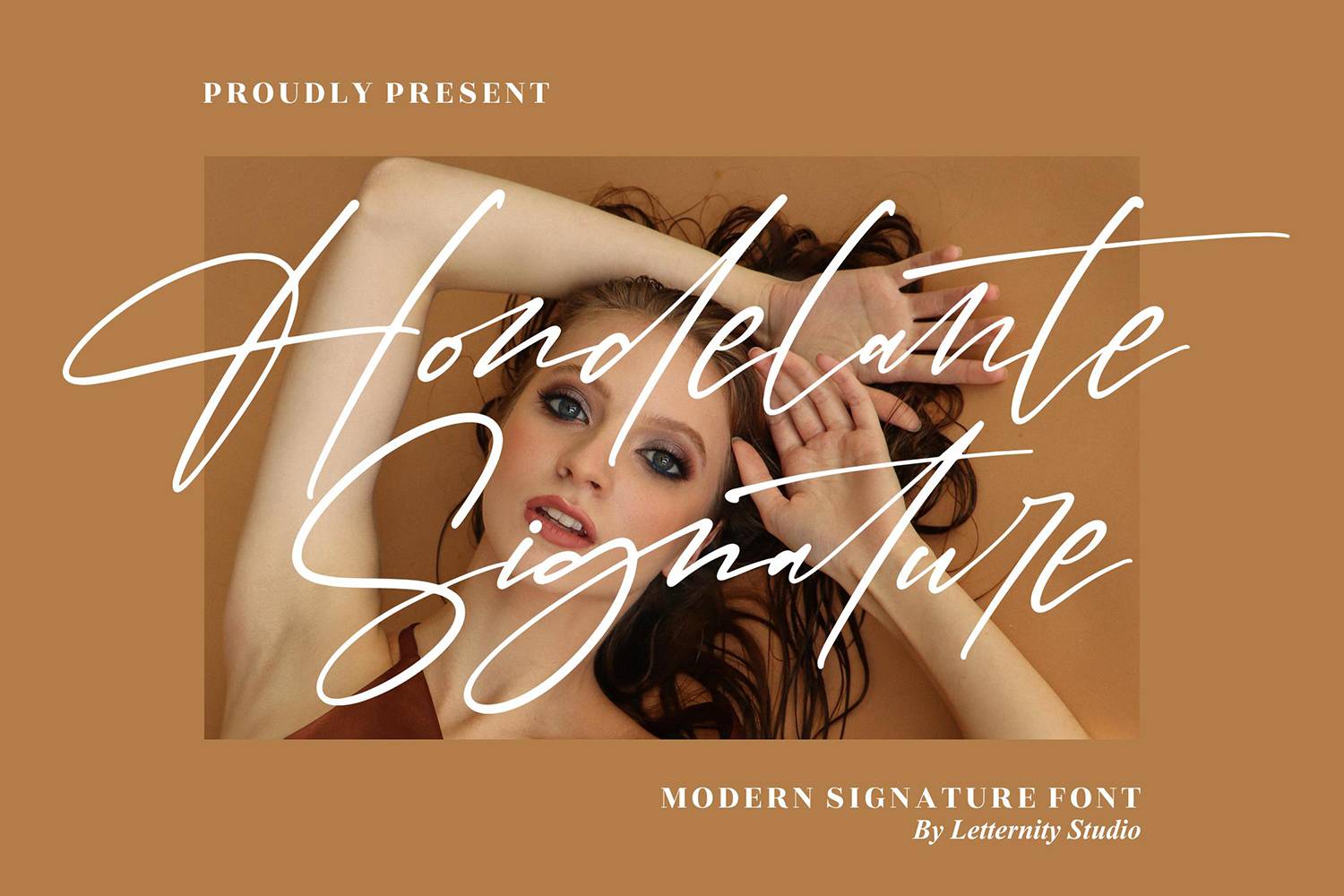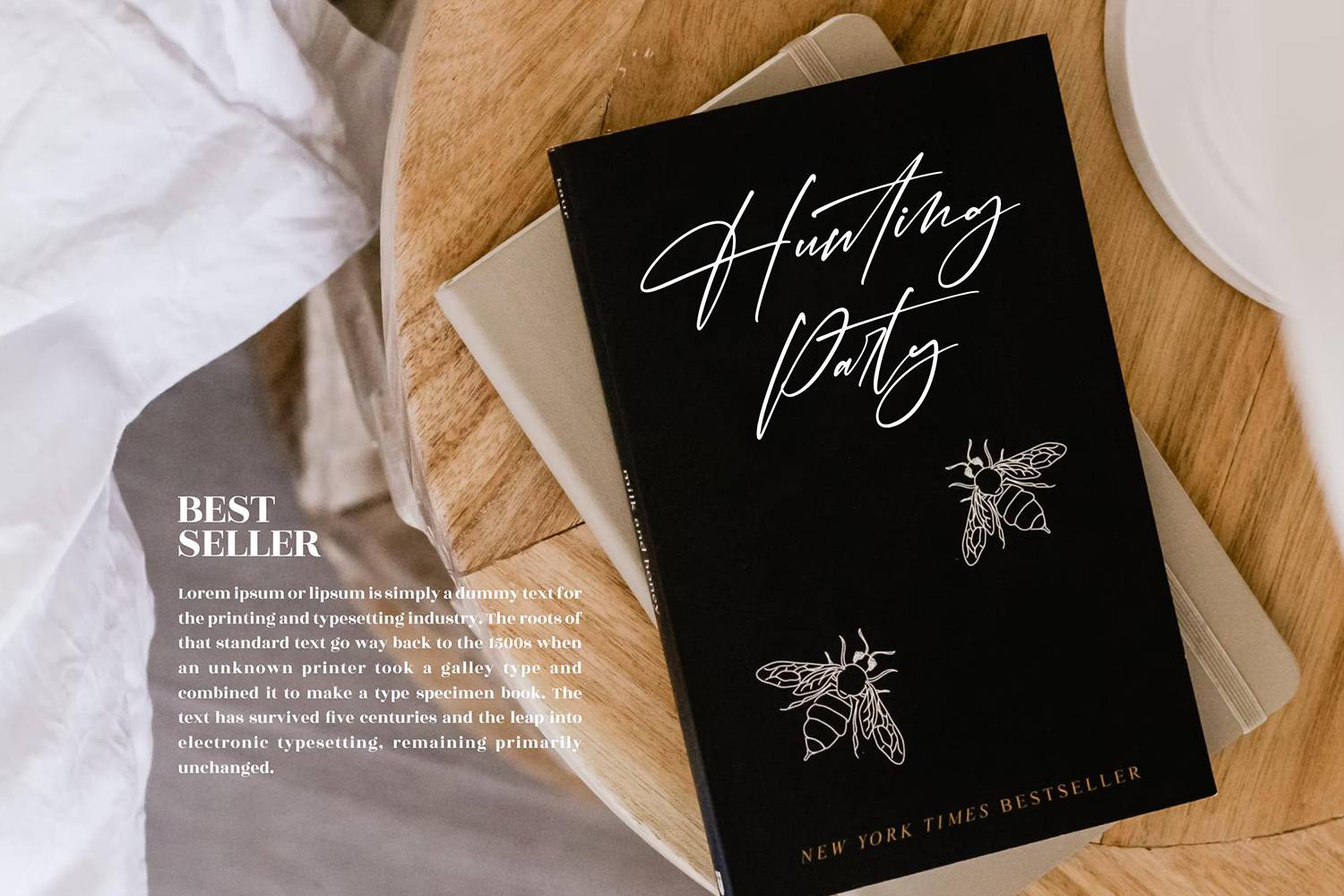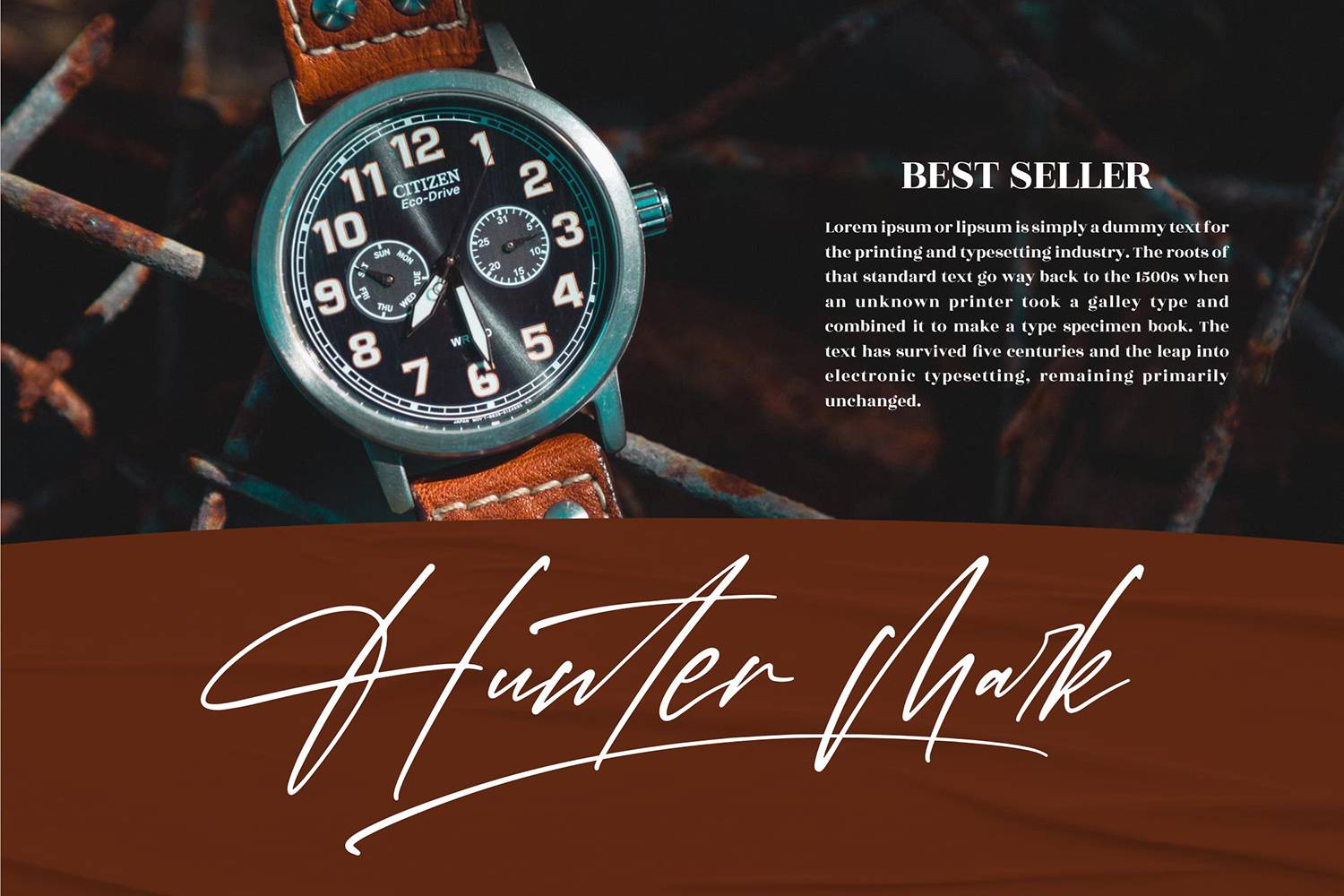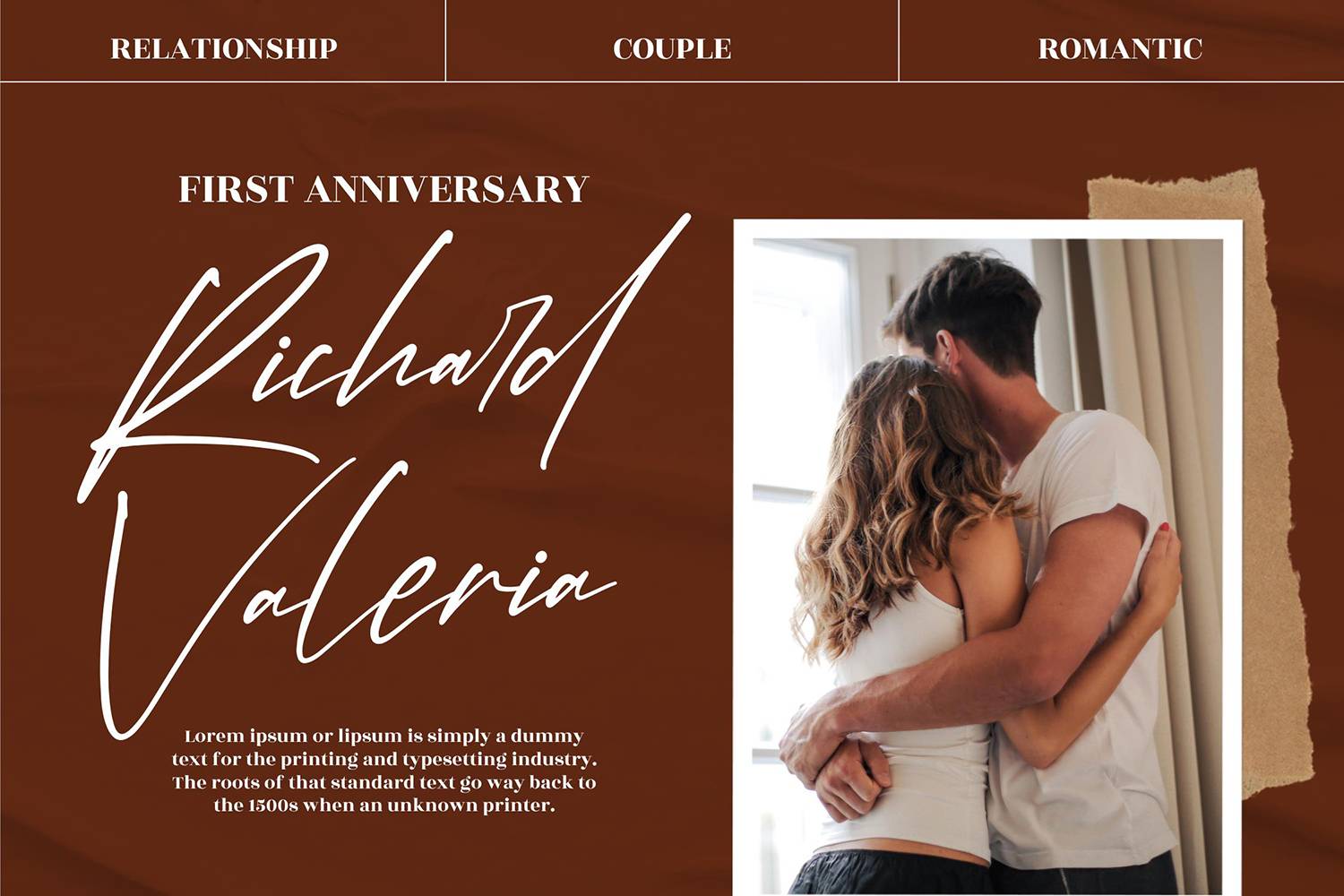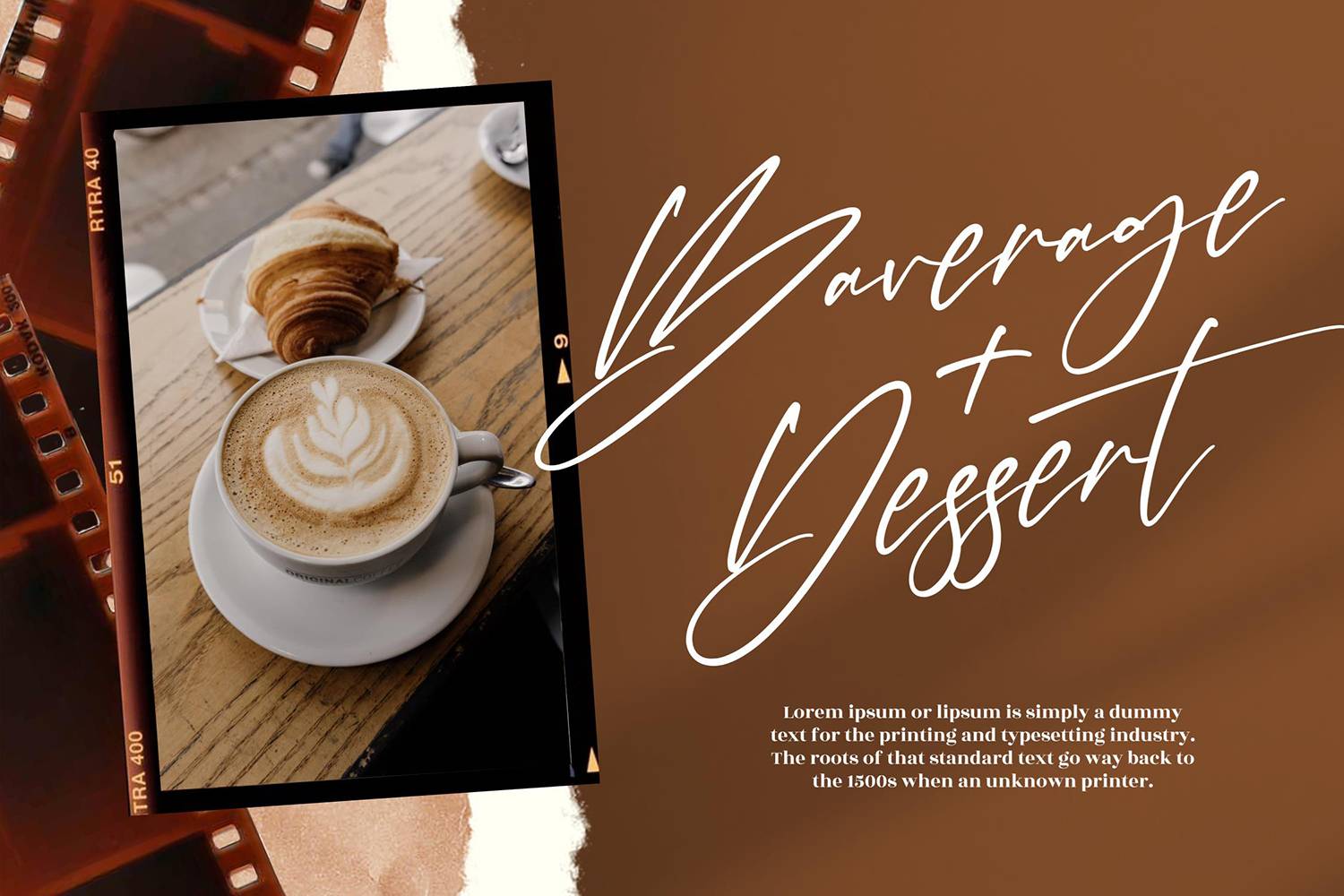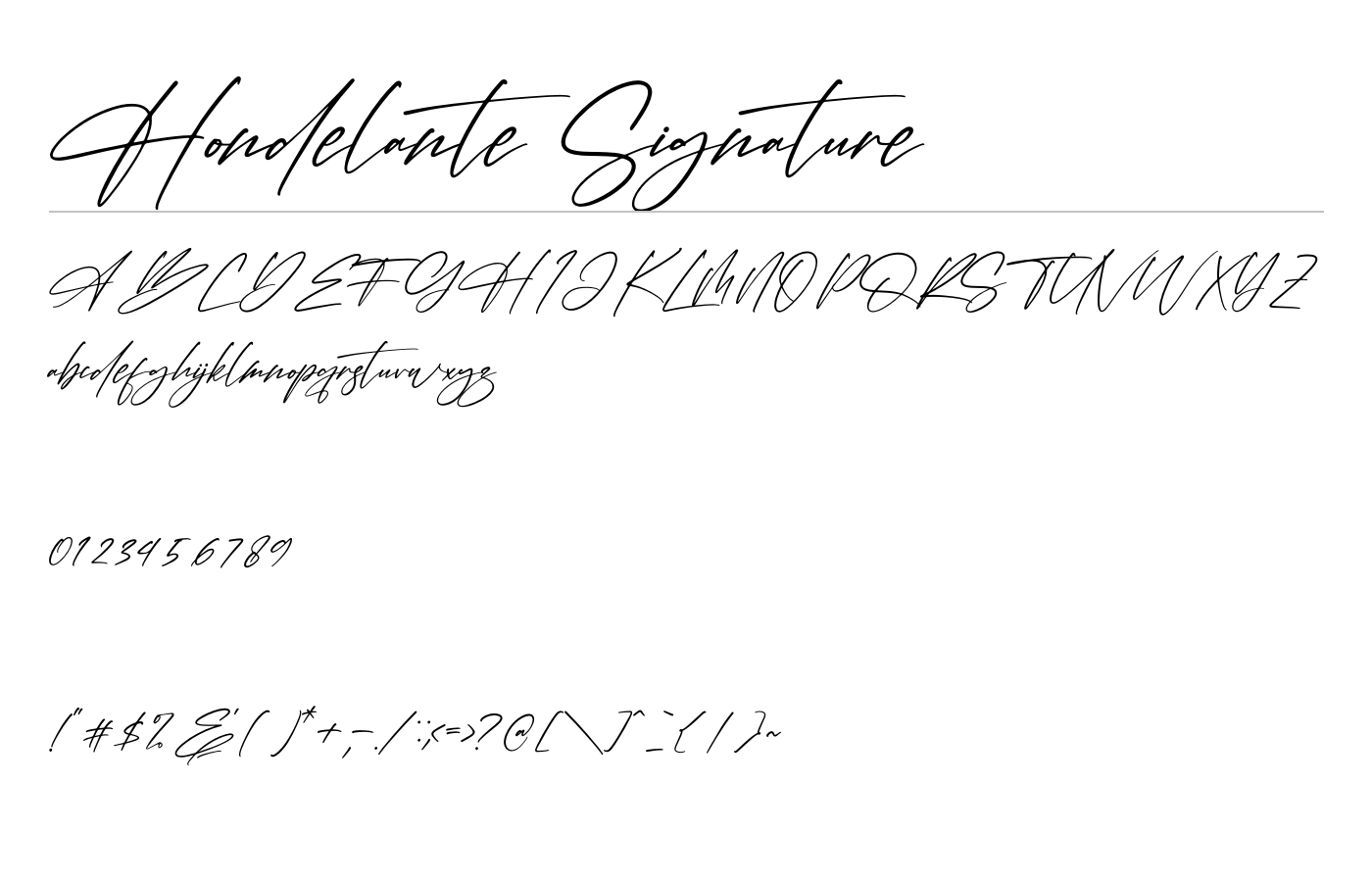
Hondelante Signature Font is a delicate, elegant script font that mimics natural handwriting with its slender, flowing strokes and high contrast between thin hairlines and fuller curves. The font’s tall, narrow letterforms and slightly slanted, connected letters create a refined and stylish feel, making it perfect for branding, invitations, and logos that require a personal, sophisticated touch. Its graceful, modern signature style adds a sense of luxury and authenticity to any design.
Hondelante Signature Font
About Hondelante Signature Font